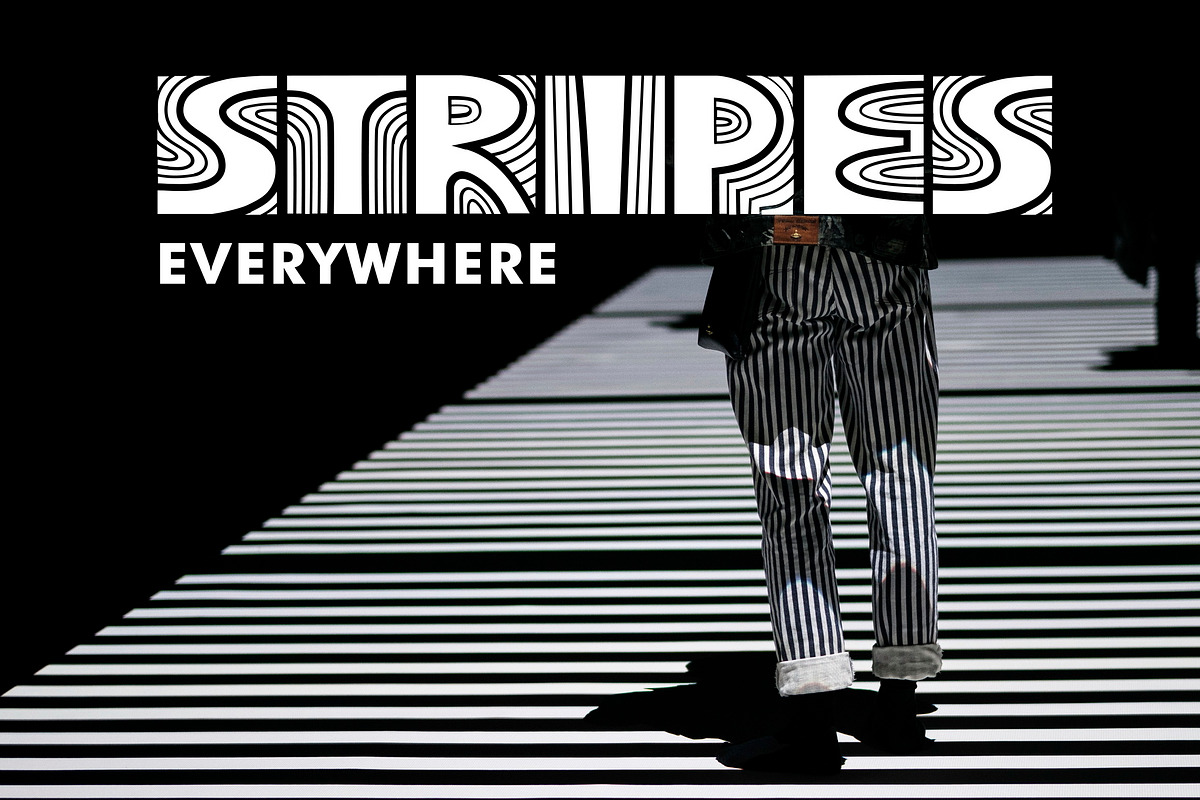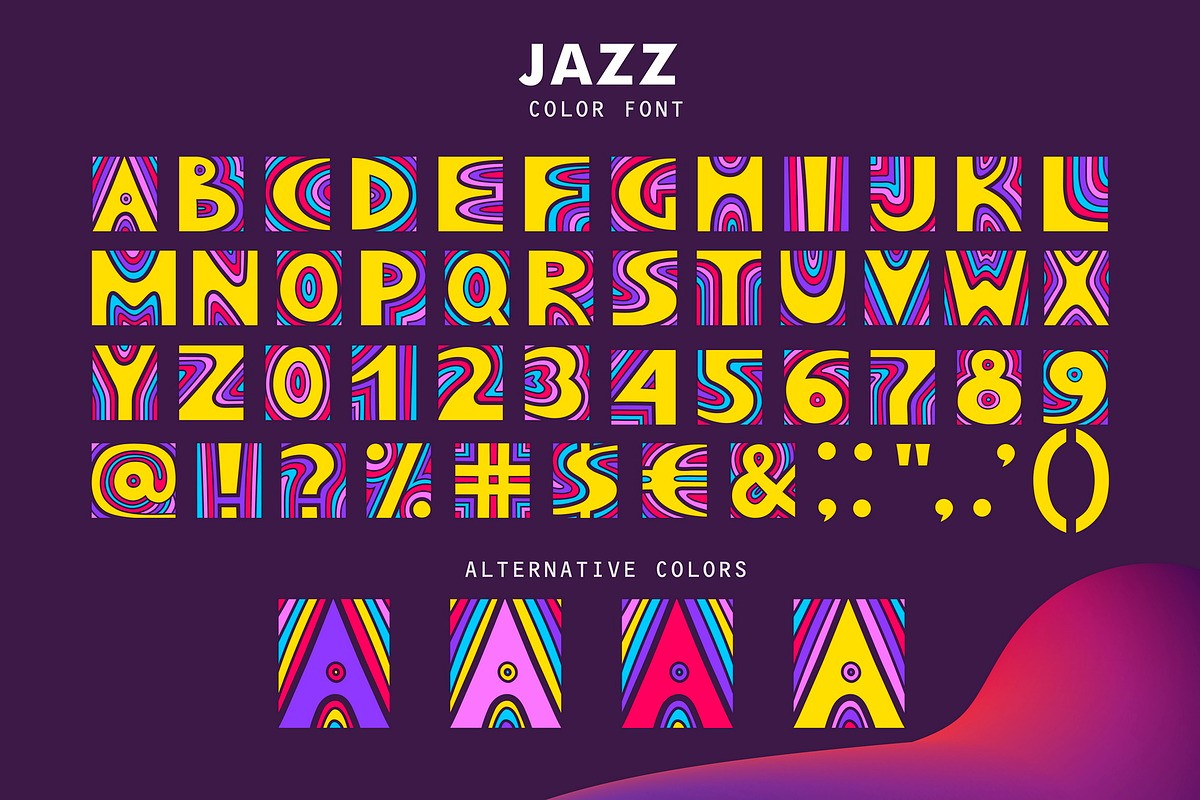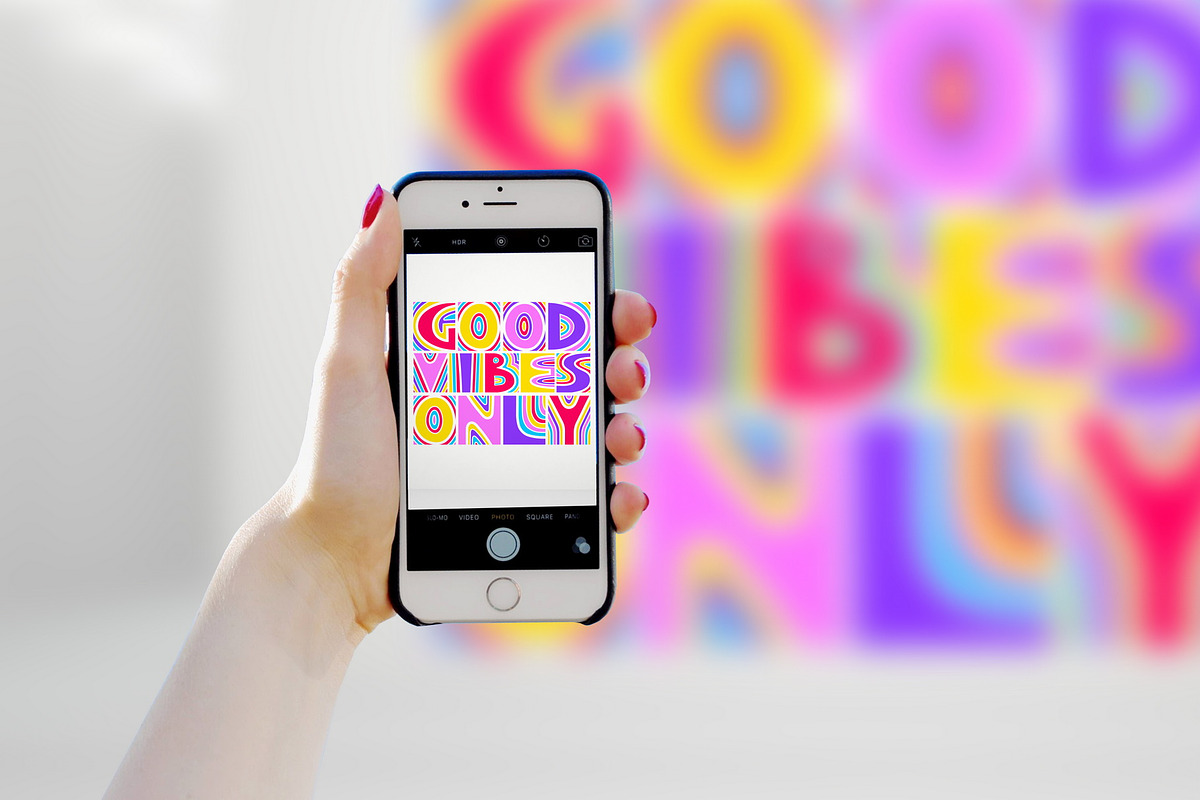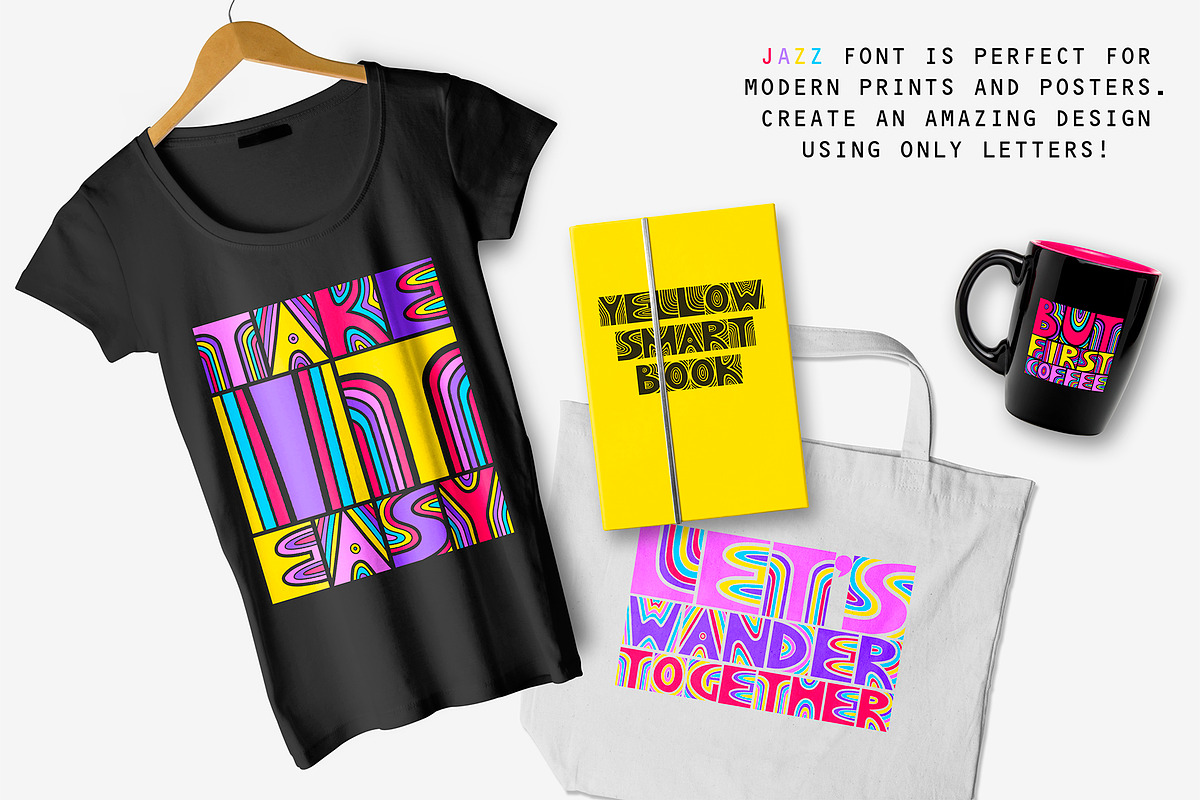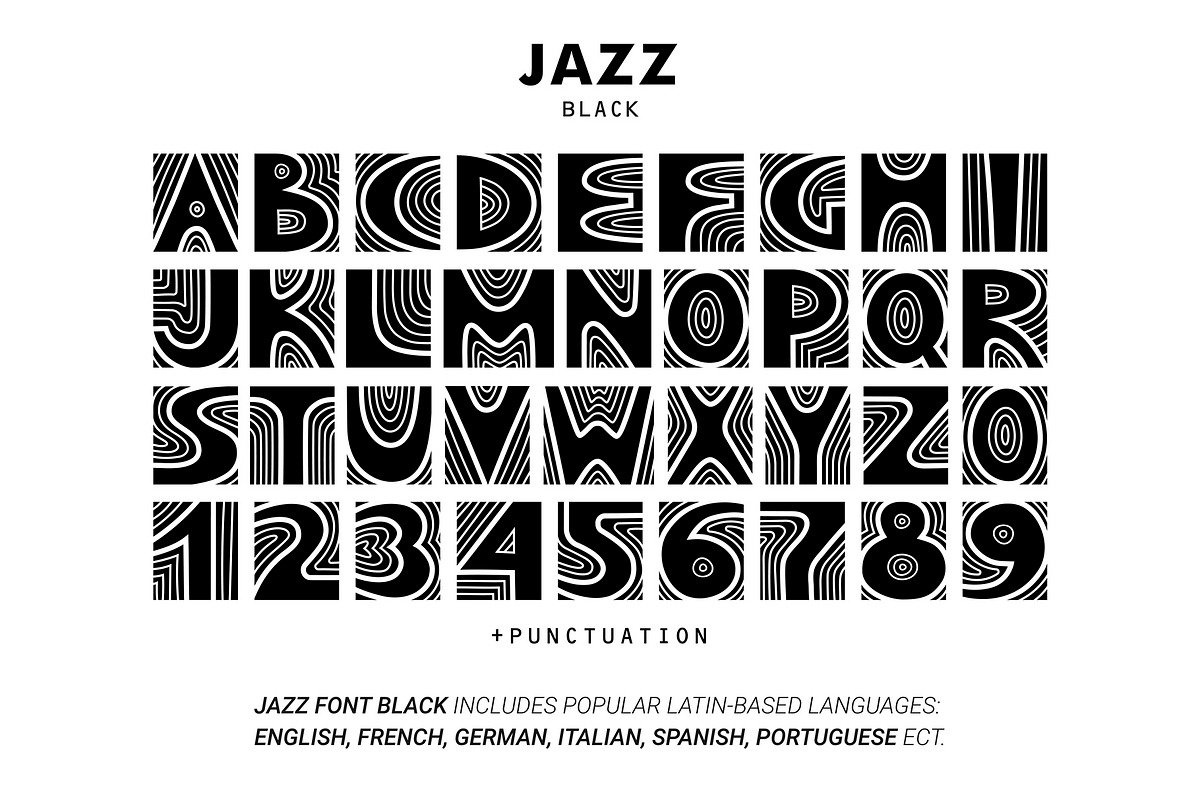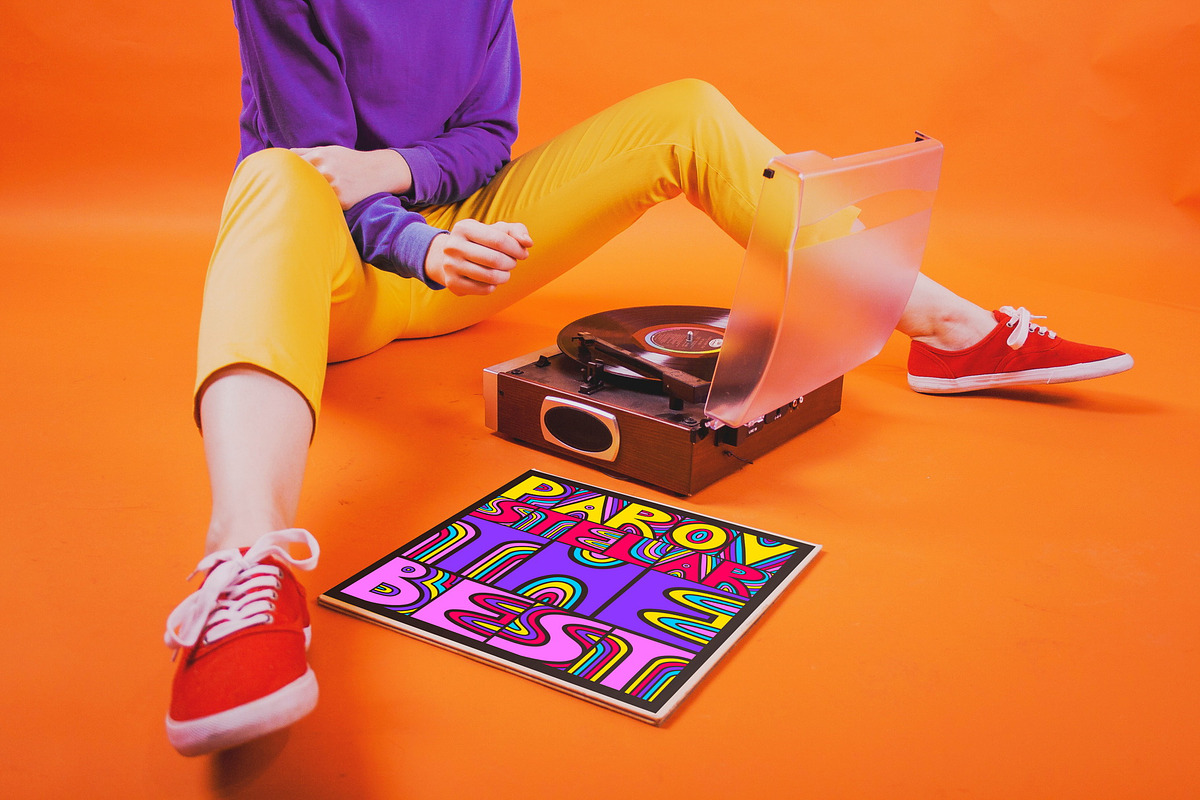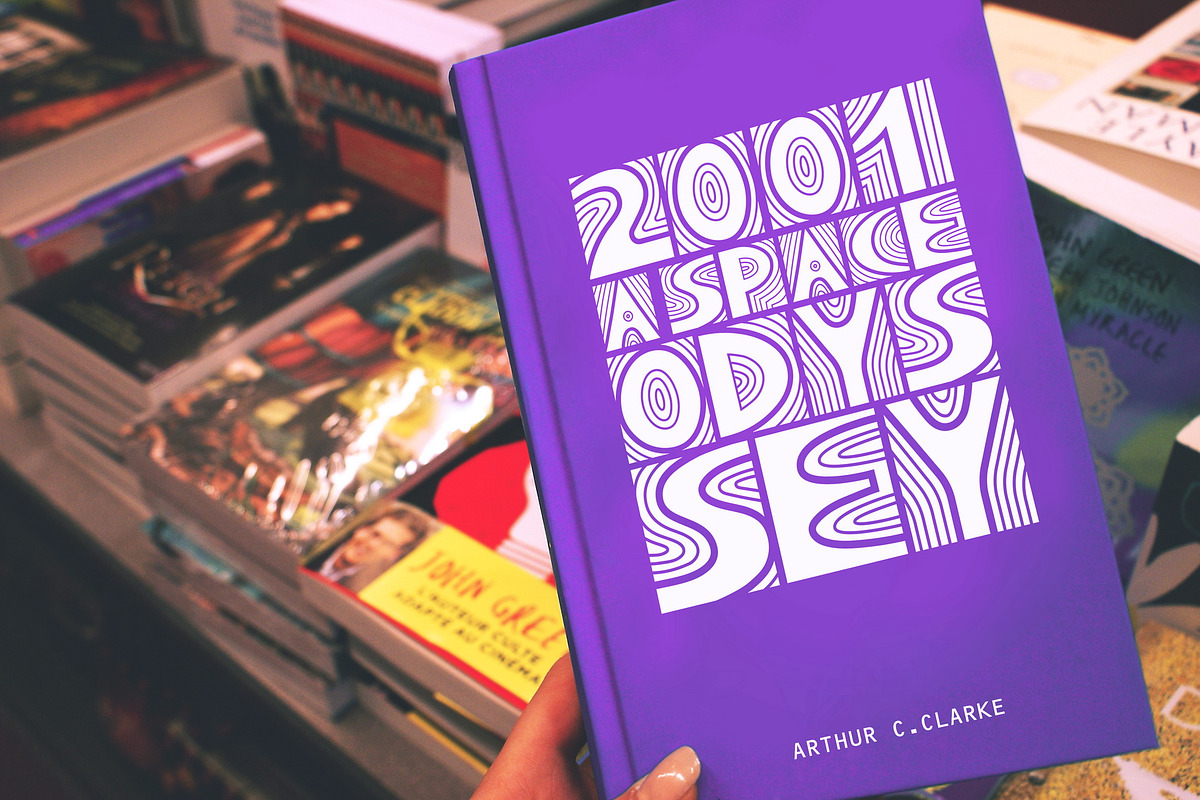
JAZZ - SVG Color Font
Hey there! Do you want to create an amazing design using only letters? If so, then I want to introduce you my JAZZ Font. The typeface is presented in two uppercase fonts: JAZZ Font Color and JAZZ Font Black.
JAZZ font is suitable for music posters, album and book covers, t-shirt prints. You can create trendy logos, retro placards, photo overlays using color and black versions.
- JAZZ Font Black - classic version